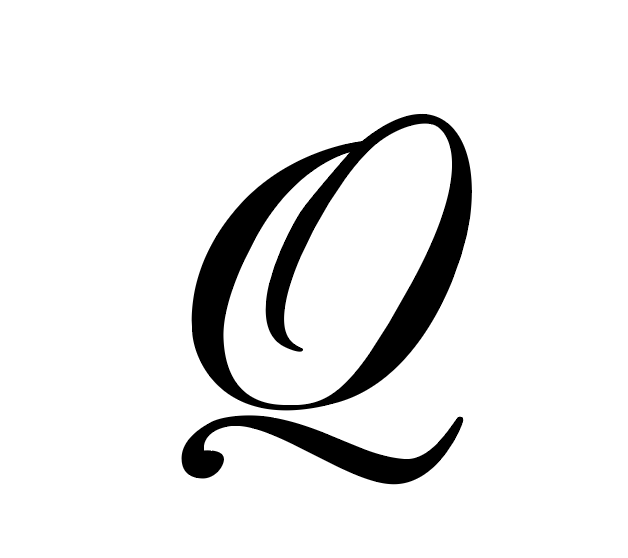
Hi I would like to know the font used here please, I’m thinking its an old school Mac font, but my brain isnt working today.
Otherwise I’ll have to redraw it…